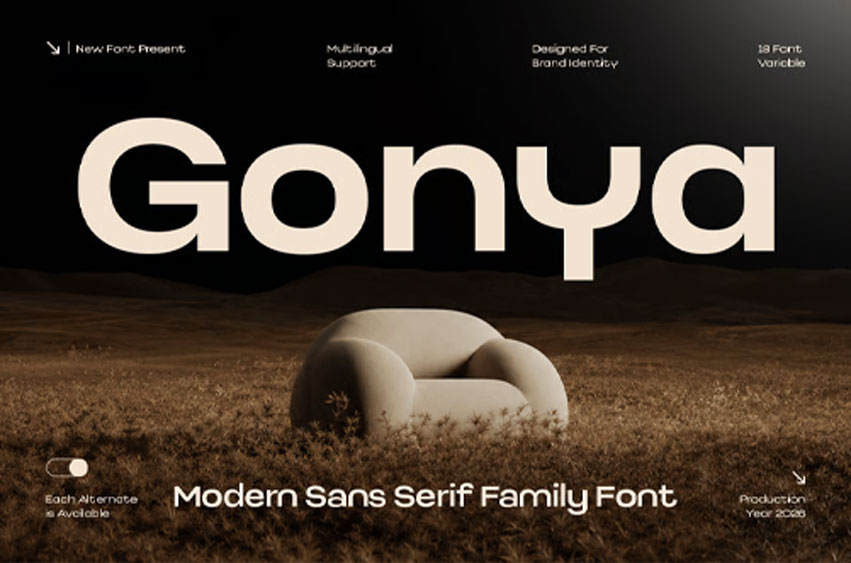
Gonya Font Modern Sans Serif Font Family is a versatile typeface family crafted to deliver clarity, balance, and contemporary style across a wide range of design applications. Inspired by modern typography and clean branding systems, Gonya is designed for creators who need a reliable font family that performs beautifully in both digital and print environments.
With its clean letterforms, balanced proportions, and harmonious family structure, Gonya provides excellent readability while maintaining a modern and professional appearance. The carefully developed styles work seamlessly together, making the font family ideal for comprehensive branding and visual identity systems.
Gonya Font Features
• Character Set: Uppercase, lowercase, numbers, symbols, and punctuation
• Prepared with 18 weights, available with regular and italic
• Modern sans serif letterforms designed for clarity and versatility
• OpenType features ready to enhance your design needs
Gonya is Perfect For
• Modern branding and visual identity systems
• Corporate and business communication
• Professional logo and logotype design
• Website interfaces and digital products
• Marketing materials and presentations
• Contemporary editorial and typography projects
Whether you are building a brand identity, designing a professional communication system, or creating a modern digital experience, Gonya provides the flexibility, clarity, and sophistication needed for outstanding results.